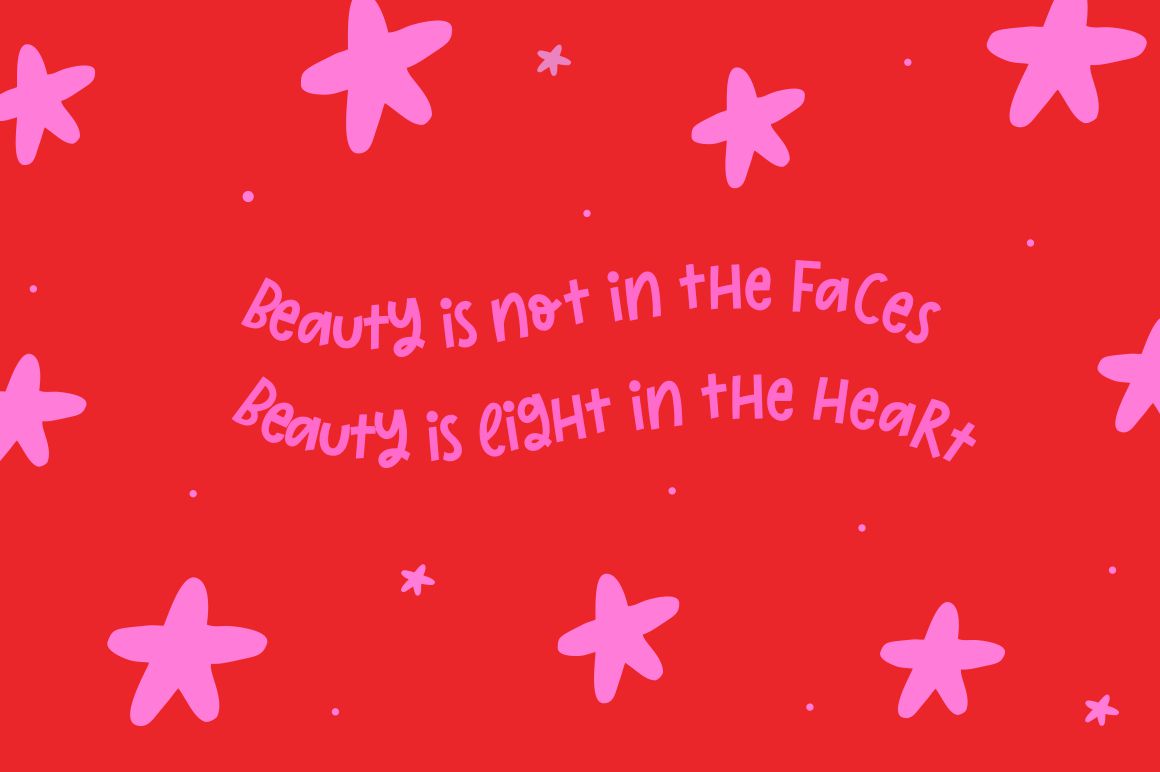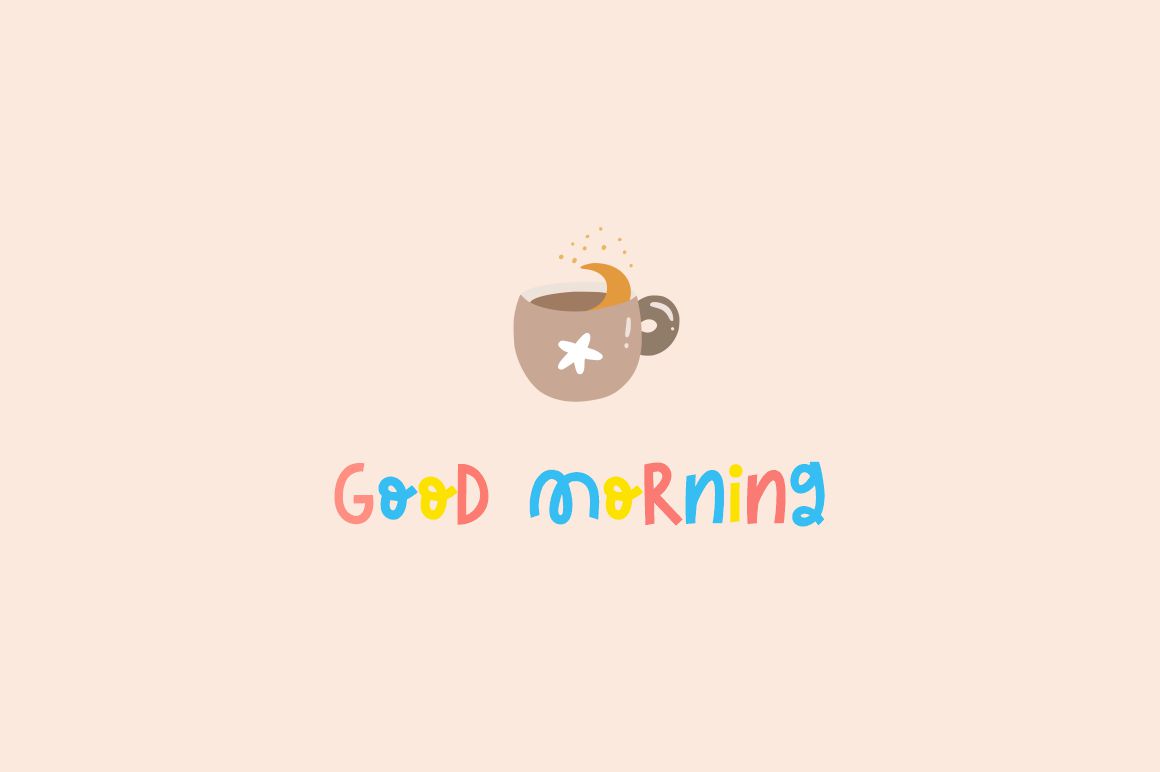
Triple Lemon Display Font
This is fun and charming hand-drawn typeface. This typeface can add more fun and happiness in your design. It can be used to create a beautiful inscription for t-shirts, children’s books, branding, small business, book covers, stationery, marketing, blog, magazines and more. All characters of this font supported PUA encoded.